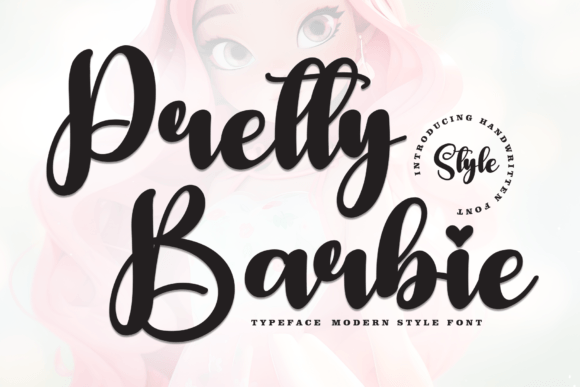
Introducing Pretty Barbie, a whimsical script font that exudes charm and playfulness. Its graceful curves and sweeping strokes are reminiscent of a swirly candy cane, evoking a sense of wonder and nostalgia. Picture yourself using this font to personalize Christmas bags, creating an enchanting atmosphere that brings a smile to everyone's face.
Whether you're a professional crafter seeking a personalized touch, or a creative individual looking to add some sparkle to your holiday decor, Pretty Barbie's sweet and friendly personality is sure to captivate your audience. Its versatility extends beyond Christmas bags; imagine using it to craft personalized cards, enchanting invitations, or any design craving a touch of magic.
Pretty Barbie's sweet and charming nature makes it ideal for creating personalized messages that resonate with your loved ones. Its playful spirit will breathe life into your Christmas creations, transforming them into cherished keepsakes that evoke fond memories for years to come. As you spread the holiday cheer, Pretty Barbie will enhance your creations with a touch of sweetness that leaves a lasting impression.
With Pretty Barbie, you'll have more than just a font; you'll have a creative companion that fuels your imagination and inspires you to create awe-inspiring masterpieces. It's the perfect choice for adding a touch of whimsy to your Christmas creations and spreading holiday cheer with style.